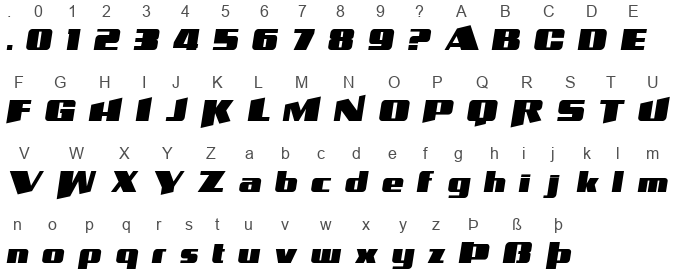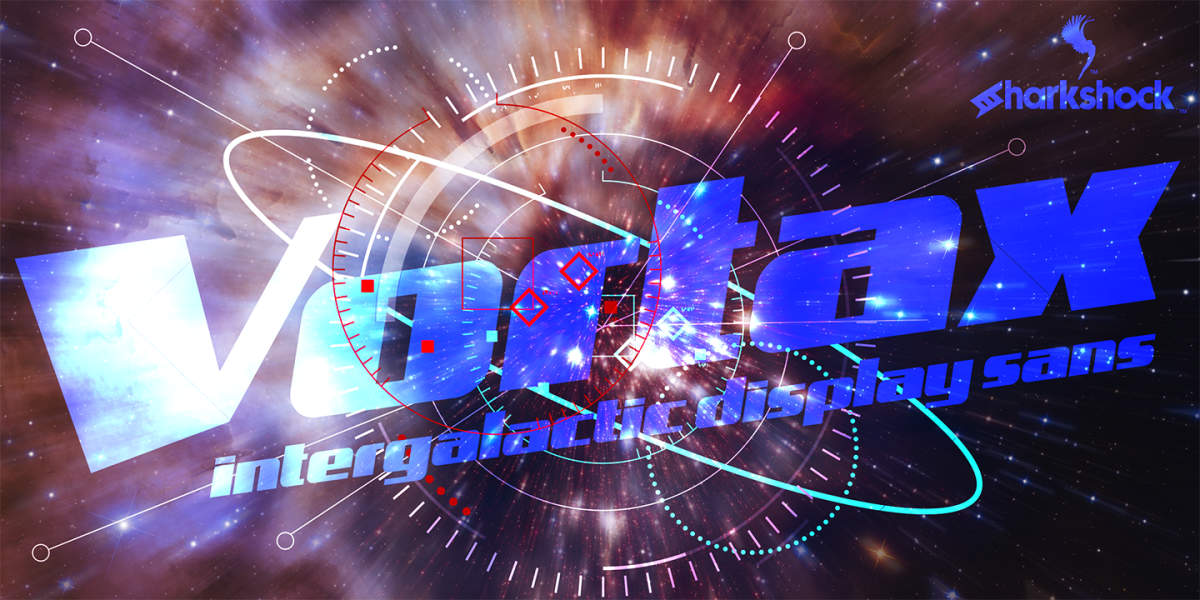
The font Vortax is a bold, futuristic display typeface with a loud, intergalactic personality. It features heavy, angular letterforms with sharp geometric cuts that give it a fast, high-energy feel, while the wide, blocky shapes add weight and impact to every word. Many of the letters include stylized, sci-fi inspired edges and slants, which create a sense of motion and technological intensity often seen in space themed media, video games, and high action branding. Overall, it is a striking, energetic typeface designed to stand out in bold, visually explosive contexts.
Vortax